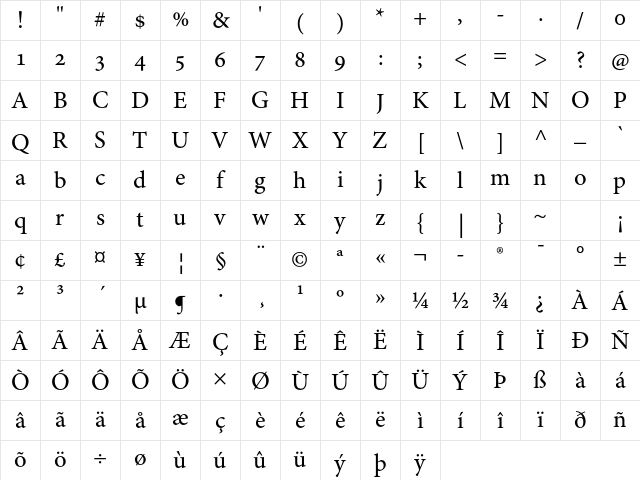
Adobe Hebrew Regular
Foundry: Tiro Typeworks for Adobe Systems Incorporated.
Designer: John Hudson (Hebrew) and Robert Slimbach (Latin)
Complete Adobe Hebrew Regular glyph index. Displaying only characters natively supported by Adobe Hebrew Regular font.
Design Context for Adobe Hebrew
Adobe Hebrew is a composed and adaptable typeface that performs quietly and consistently across a wide range of design contexts.